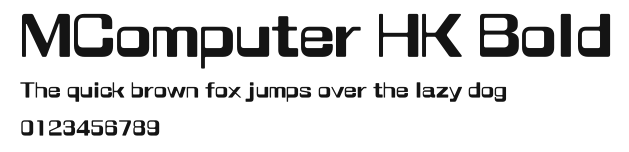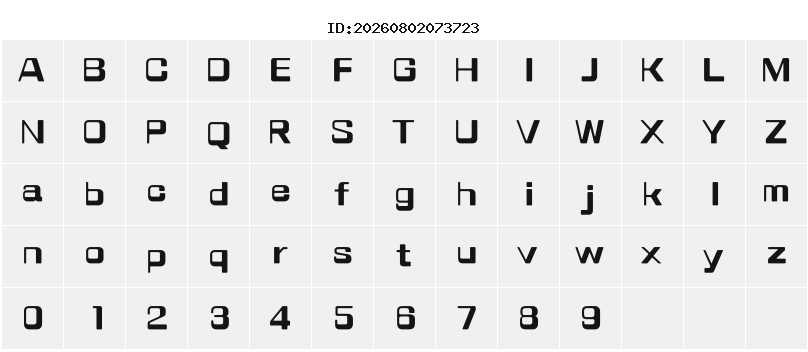
• Font Name: MComputer HK Bold
• Manufacturer: Monotype Imaging Inc.
MComputer HK Bold.ttf is a modern, elegant sans-serif font designed for ultimate readability and visual harmony. Perfect for branding, headlines, web design, and print materials.